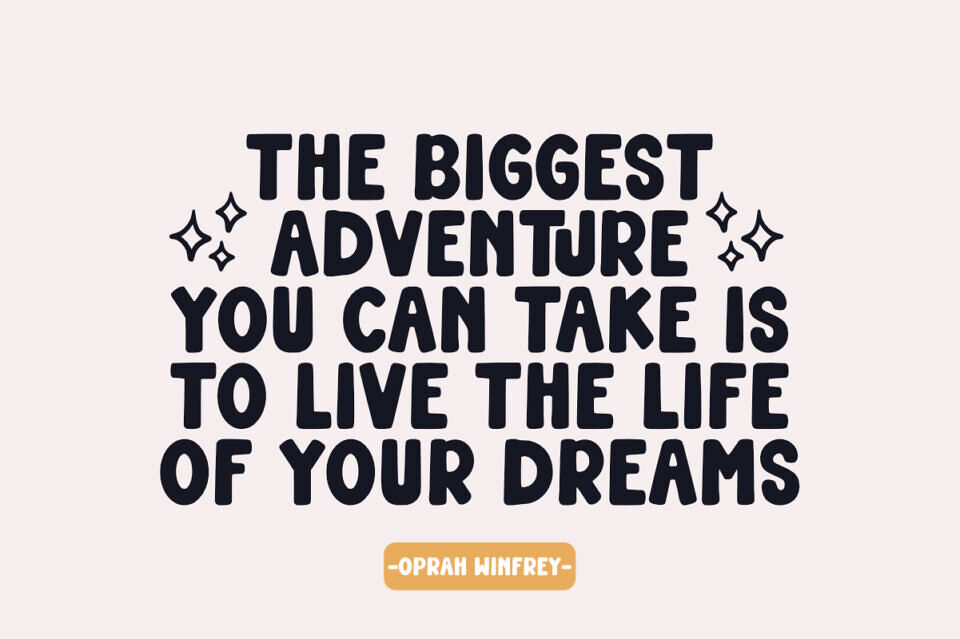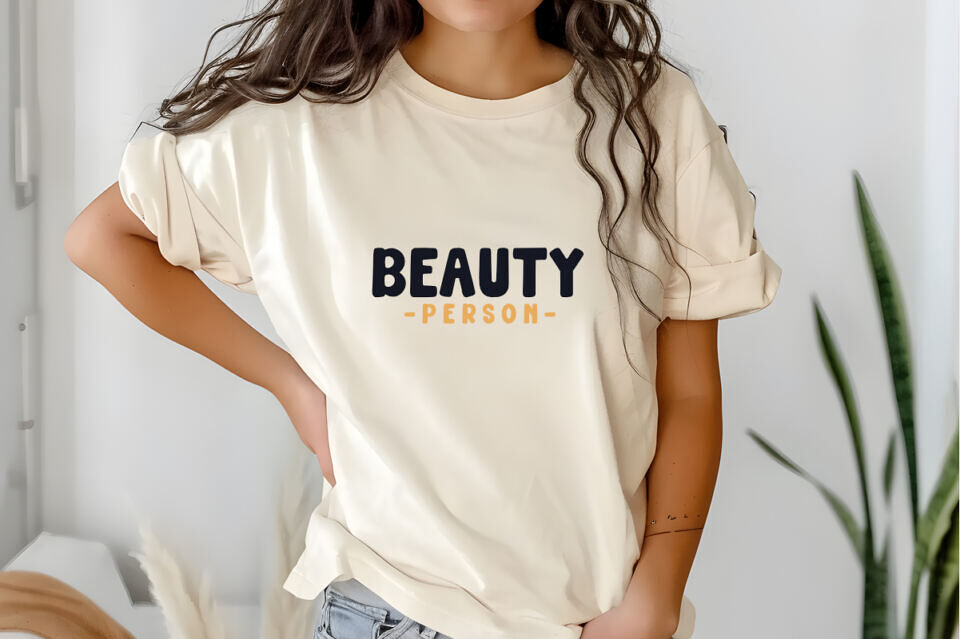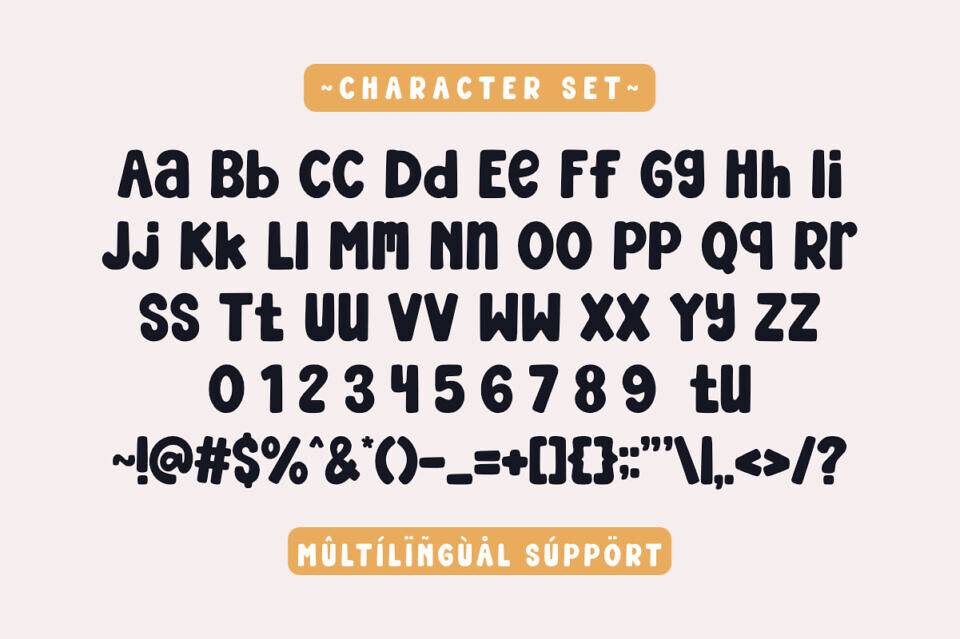
Adventure is a cute and playful sans display font crafted for fun and creative projects. Its rounded, bouncy shapes make it perfect for adding personality and warmth to your designs. This font is Cricut and sublimation-friendly, PUA encoded, and ready for your next craft adventure!